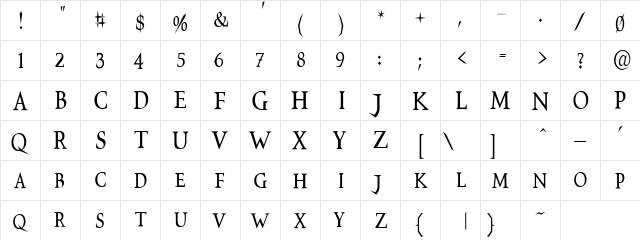
VTCSwitchbladeRomance Tall
Design Context for VTCSwitchbladeRomance Typeface
VTCSwitchbladeRomance is a composed and adaptable typeface that performs quietly and consistently across a wide range of design contexts.
Pro Tip: Use VTCSwitchbladeRomance in both headline and body roles to test its range before committing to a single application.